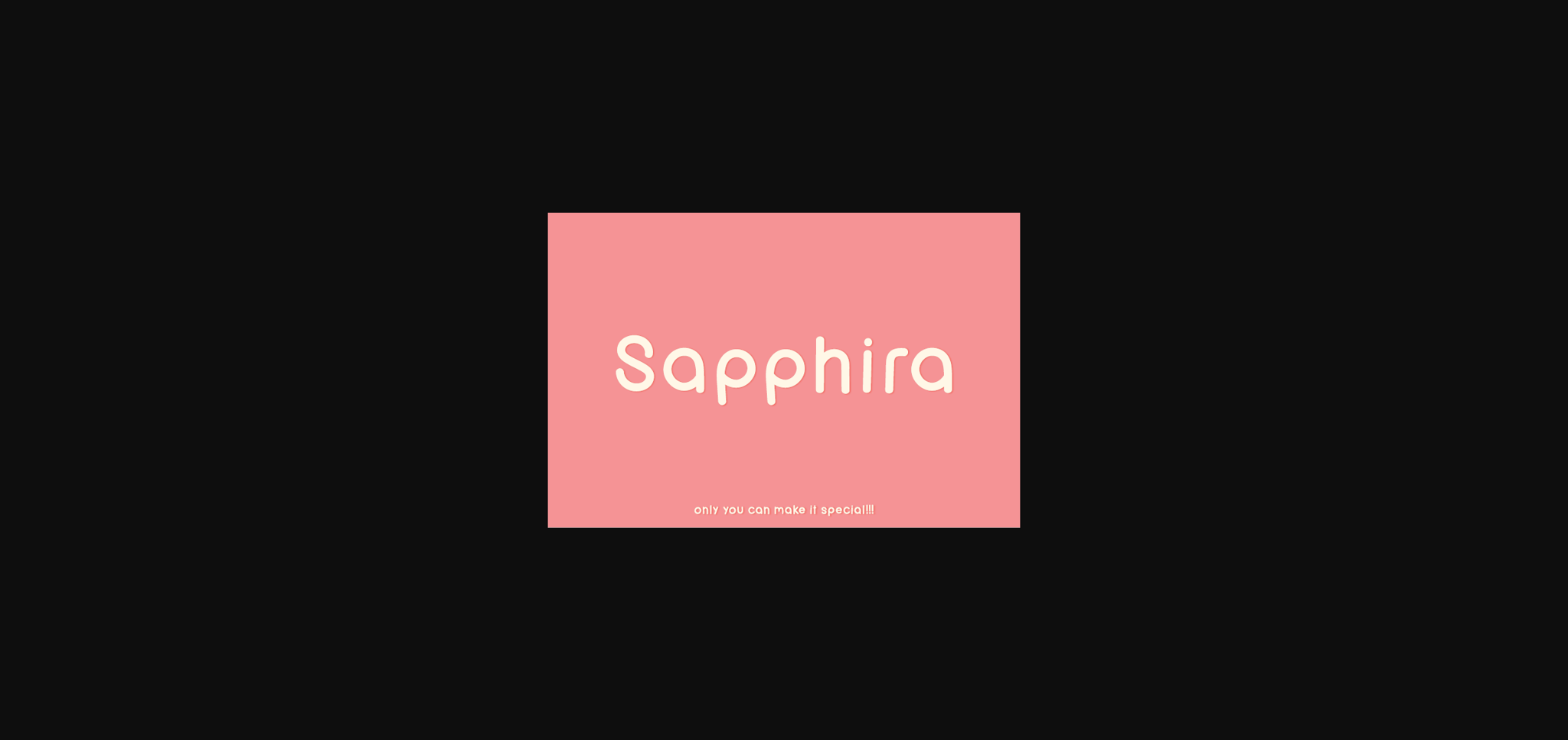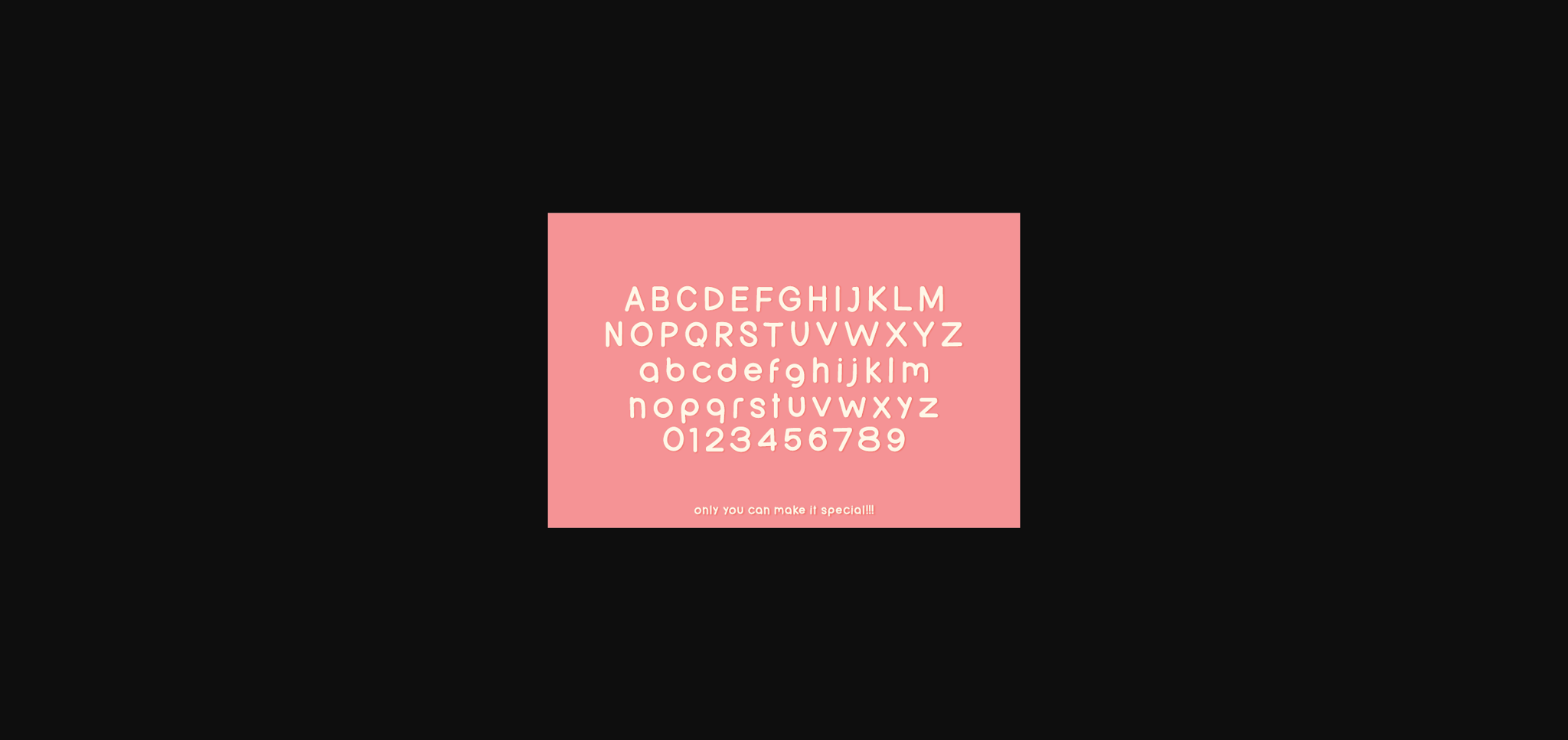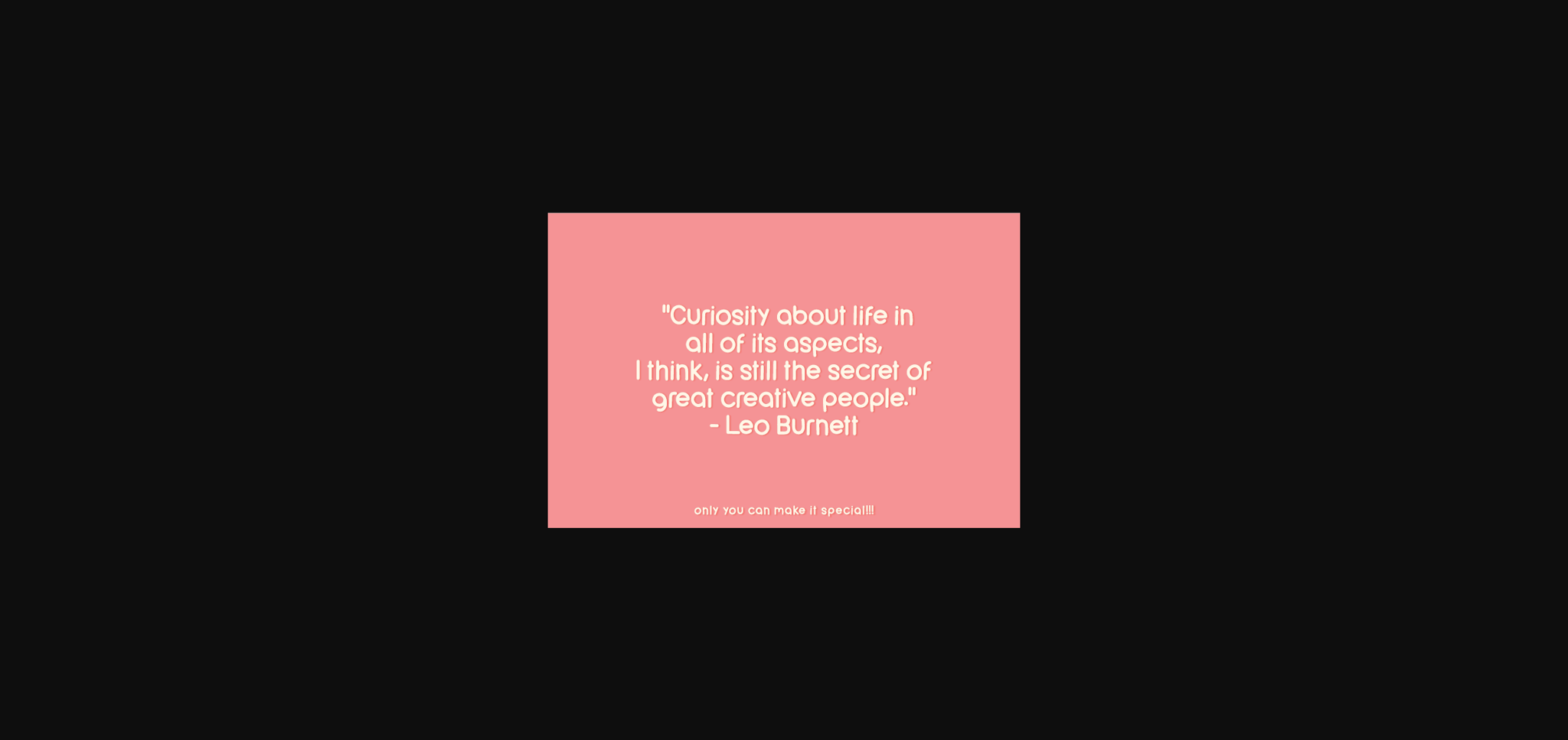
About Sapphira Font
Sapphira is a natural sans serif font made without changing a single node in each character’s indentation – this makes this font very interesting and unique. Perfect for quotes, notes, tees, and any product design.